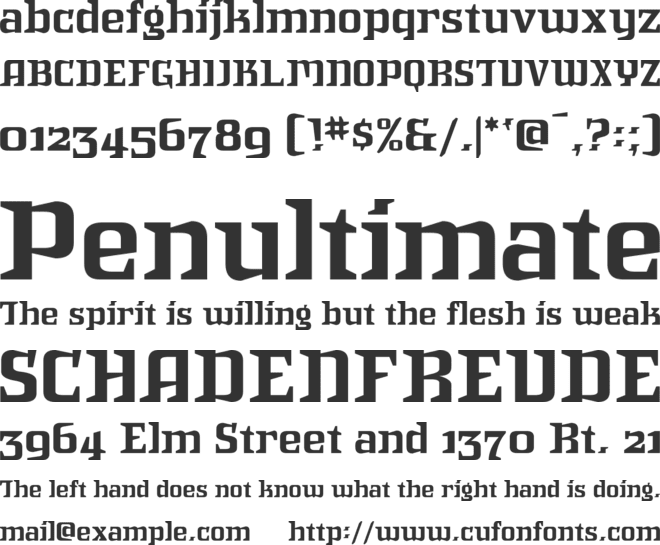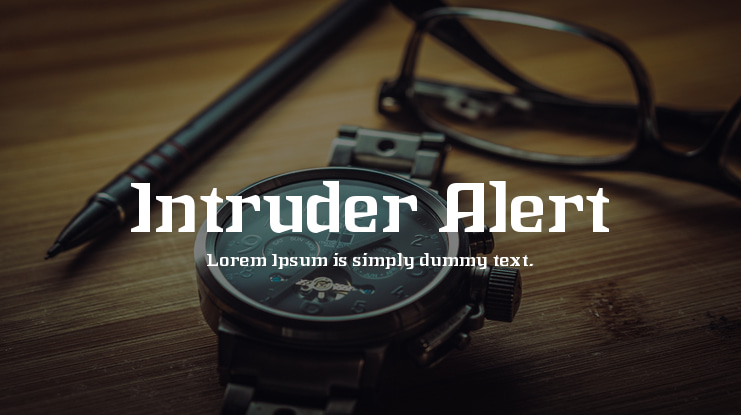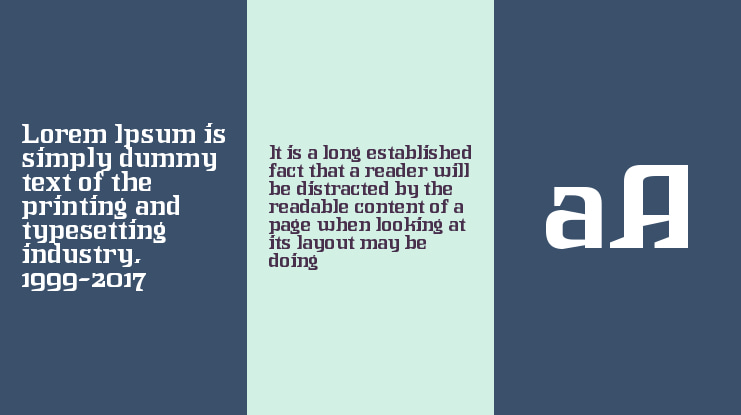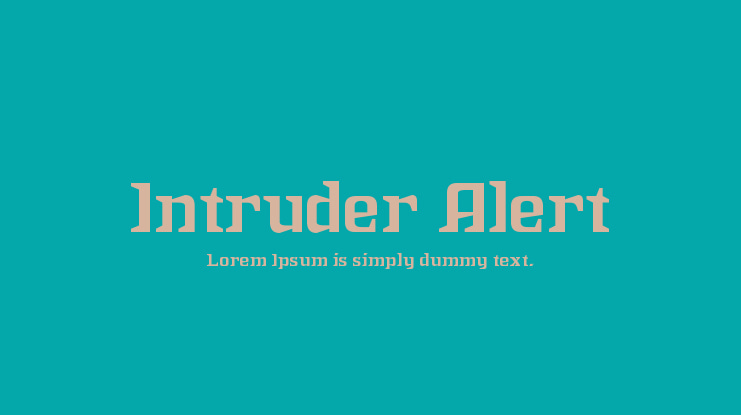
Intruder Alert Font
"A hard-nosed little font that will protect the borders at all costs. This font includes not only the complete Latin alphabet that all my fonts do these days, but also the complete Russian alphabet, so you can warn your sentries behind the Iron Curtain in your 80's spy novel."